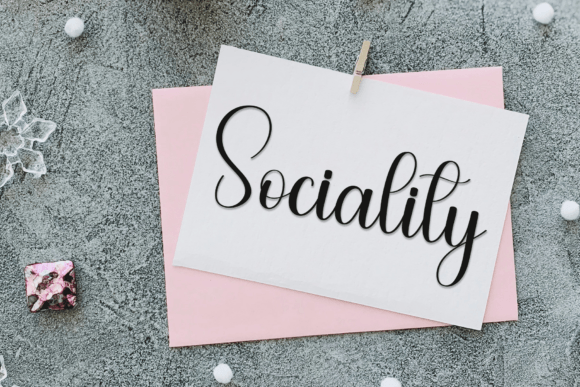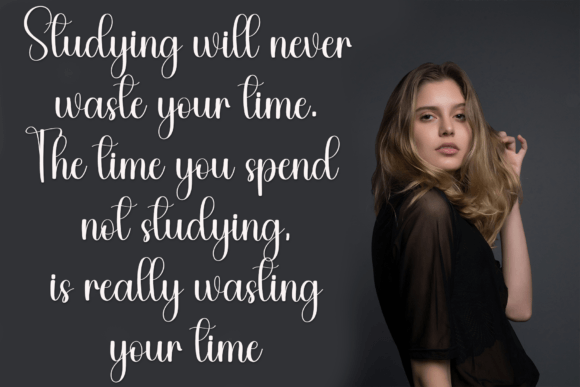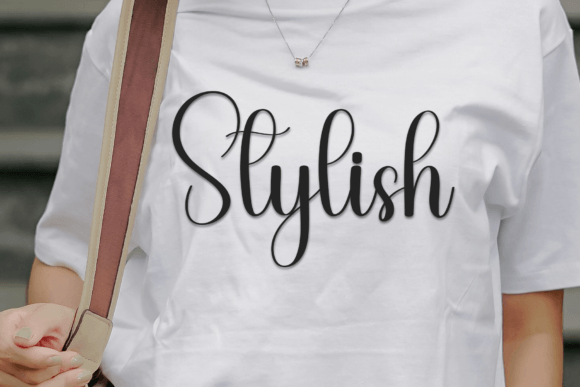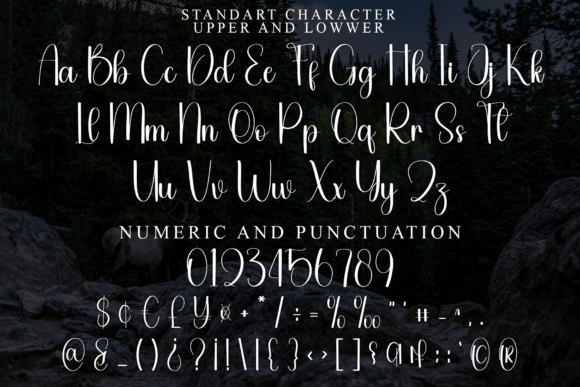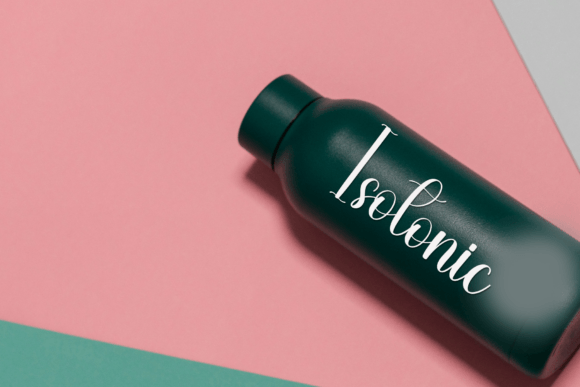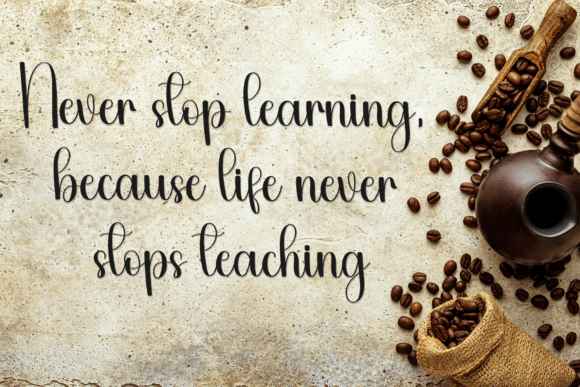
Introducing Excited Christmas Font: A Timeless Classic for Your Holiday Projects
Are you looking for a font that captures the essence of Christmas with a touch of elegance and sophistication? Look no further than the Excited Christmas Font, a stylish and beautiful typeface that is sure to elevate your holiday projects to the next level. Inspired by timeless classic calligraphy, this font boasts a contemporary atmosphere and impeccable form, making it perfect for designers and crafters seeking to add a touch of festive flair to their work.
A Font that Exudes Elegance and Sophistication
The Excited Christmas Font is a masterclass in balance and variation, carefully crafted to enhance the beauty of your projects. With its roots in traditional calligraphy, this font has been designed to bring a sense of luxury and refinement to your designs, whether you’re working on holiday cards, invitations, or festive marketing materials. The font’s elegant lines and curves evoke a sense of nostalgia and wonder, perfect for capturing the magic of the holiday season.
One of the standout features of the Excited Christmas Font is its PUA (Private Use Area) encoding, which allows you to access a wide range of glyphs and ligatures with ease. This means that you can effortlessly add intricate details and flourishes to your designs, taking your work to new heights of creativity and sophistication. Whether you’re a seasoned designer or a crafty DIY enthusiast, the Excited Christmas Font is designed to make your life easier and your designs more stunning.
Perfect for a Variety of Holiday Projects
The Excited Christmas Font is incredibly versatile, making it suitable for a wide range of holiday projects. Here are just a few ideas to get you started:
- Holiday cards and invitations: Add a touch of elegance and sophistication to your holiday correspondence with this beautiful font.
- Festive marketing materials: Elevate your holiday marketing campaigns with a font that exudes luxury and refinement.
- DIY crafts: Add a personal touch to your holiday crafts, such as gift tags, decorations, and more.
- Web graphics: Use the Excited Christmas Font to create eye-catching web graphics, such as holiday banners and social media posts.
Why Choose the Excited Christmas Font?
With so many fonts to choose from, why should you opt for the Excited Christmas Font? Here are just a few compelling reasons:
- Unique and stylish: This font is sure to set your designs apart from the crowd, with its elegant lines and curves.
- Easy to use: With PUA encoding, you can access a wide range of glyphs and ligatures with ease.
- Versatile: Suitable for a wide range of holiday projects, from cards and invitations to marketing materials and DIY crafts.
- High-quality: This font has been carefully crafted to ensure that it is of the highest quality, with impeccable form and a contemporary atmosphere.
Get Ready to Make Your Holiday Designs Shine
If you’re looking for a font that will take your holiday designs to the next level, look no further than the Excited Christmas Font. With its timeless classic style, elegant lines, and PUA encoding, this font is sure to be a hit with designers and crafters alike. So why wait? Download the Excited Christmas Font today and get ready to make your holiday designs shine!
Key Features of Excited Christmas Font
- Timeless classic calligraphy-inspired design
- Elegant and sophisticated style
- Balanced and varied design
- Suitable for a wide range of holiday projects
- High-quality font with impeccable form and a contemporary atmosphere
In conclusion, the Excited Christmas Font is a stylish and beautiful typeface that is sure to elevate your holiday projects to new heights of elegance and sophistication. With its timeless classic style, PUA encoding, and versatile design, this font is perfect for designers and crafters seeking to add a touch of festive flair to their work. So why wait? Download the Excited Christmas Font today and get ready to make your holiday designs shine!